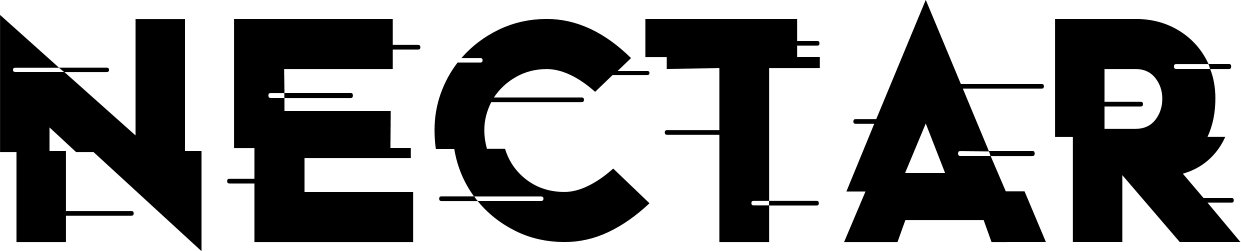
Nectar Font
Nectar font is one of the you can use for many computer designs. This has two particular types. From the irregular horizontal lines on the characters, it can be guessed that a lot of time has been spent on designing this font.
It does not support lowercase letters, but you can still make great designs for many T-shirts, movies, and video game posters.